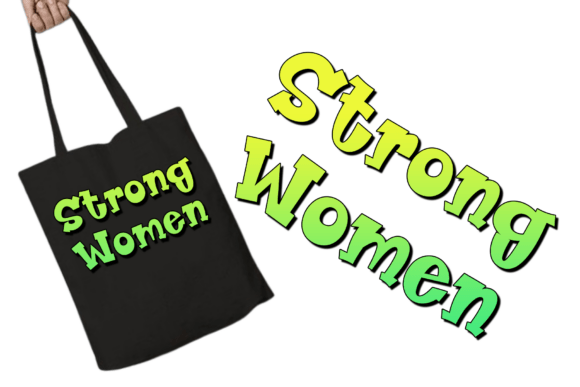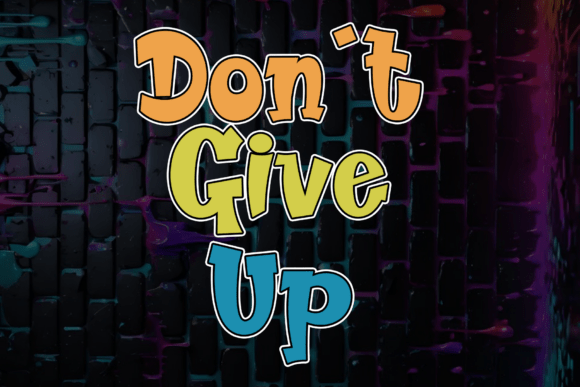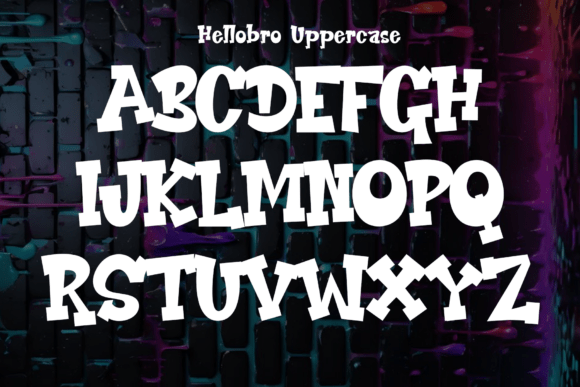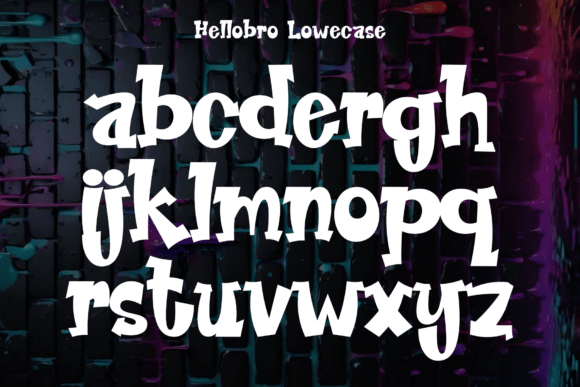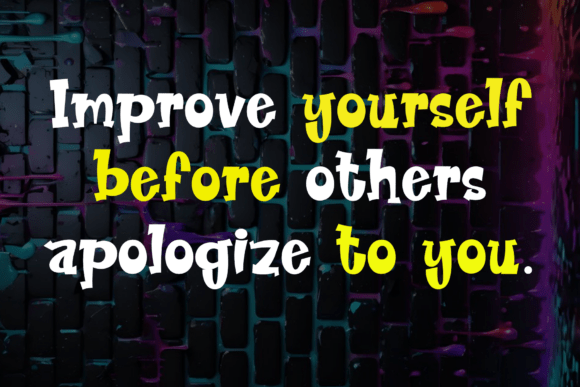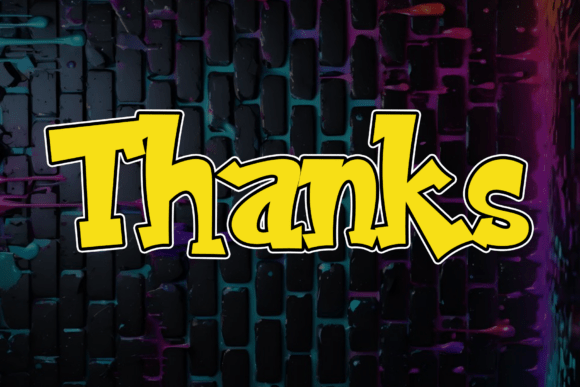
Discover the Edgy Charm of Hellobro Font: A Graffiti-Style Game-Changer
I’ll never forget the design struggle I faced while working on a poster project for a local music festival. My client wanted a bold, eye-catching title that would scream “street art” and appeal to a young, urban crowd. As I scrolled through font after font, nothing seemed quite right – until I stumbled upon Hellobro. This graffiti-style font with a playful Western twist instantly captured the rebellious energy I was looking for. In this article, I’ll share my love for Hellobro, its unique features, and provide a practical guide on how to make the most of it in your designs.
An Honest Review of Hellobro Font
What I Love About Hellobro ✨
- 💥 **Bold and Expressive**: Hellobro’s chunky letterforms and stylish shadow give it a dynamic, standout look that’s perfect for making a statement.
- 🎨 **Playful Western Twist**: The font’s unique blend of graffiti and Western styles adds a fresh dose of character and attitude to any design.
- 📸 **Highly Versatile**: Hellobro is suitable for a wide range of projects, from poster designs and merch to social media graphics and edgy branding.
- 👍 **Easy to Read**: Despite its bold and chunky appearance, Hellobro remains surprisingly legible, even at smaller font sizes.
While Hellobro is an amazing font, it’s not without its quirks. For instance, the font’s bold style can be a bit overwhelming when used in large blocks of text. Additionally, some users may find the font’s stylistic alternates and glyphs a bit tricky to navigate.
- 🤔 **Limited Suitability for Body Text**: Due to its bold and chunky nature, Hellobro may not be the best choice for lengthy paragraphs of text.
- ⚠️ **Occasional Kerning Issues**: As with any font, some users may encounter kerning issues when using Hellobro in certain design applications.
The Designer’s Inspiration Behind Hellobro
According to its designer, Hellobro was inspired by the vibrant street art scene of the American West. The font’s creator wanted to capture the rebellious energy and playful spirit of graffiti art, while also paying homage to the classic typography of the Wild West.
Q: What type of projects is Hellobro best suited for?
A: Hellobro is perfect for poster designs, merch, social media graphics, and edgy branding projects that require a bold, eye-catching font.
Q: Is Hellobro easy to read?
A: Despite its bold and chunky appearance, Hellobro remains surprisingly legible, even at smaller font sizes.
Q: Does Hellobro come with any OpenType features?
A: Yes, Hellobro includes a range of OpenType features, such as stylistic alternates and glyphs, that can be accessed in compatible design applications.